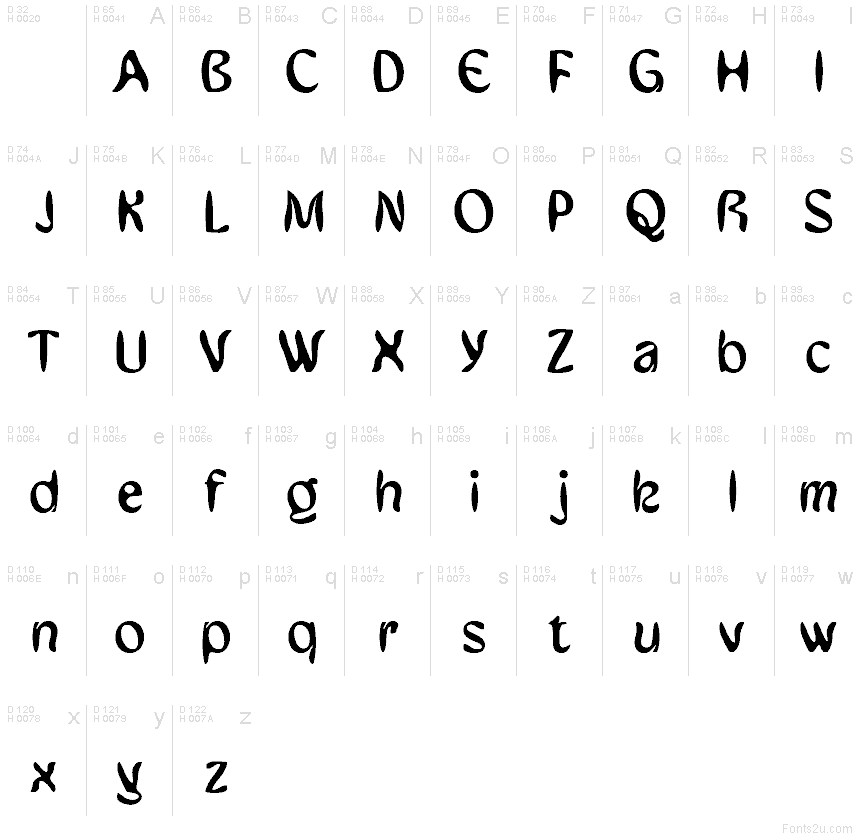
CSBelvinaDrawn-Regular Demo
CS Belvina Drawn font by Craft Supply Co. is a smooth free display font with a natural flow. Handcrafted with rounded edges, the typeface boasts immediately noticeable friendliness and accessibility. Its casual appearance makes it stand out yet fit into almost every environment.
Where to apply CS Belvina Drawn? Standout headlines, visually appealing book covers, lovely packaging designs, engaging posters, logos that make a statement… The list goes on including brochures, social media posts, branding projects, magazines cover artwork, and more!